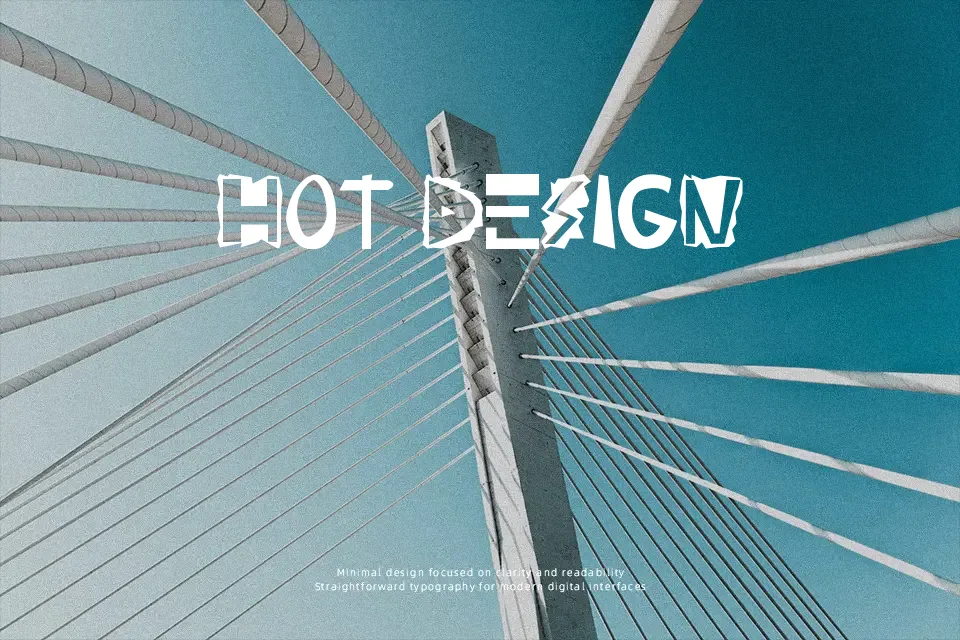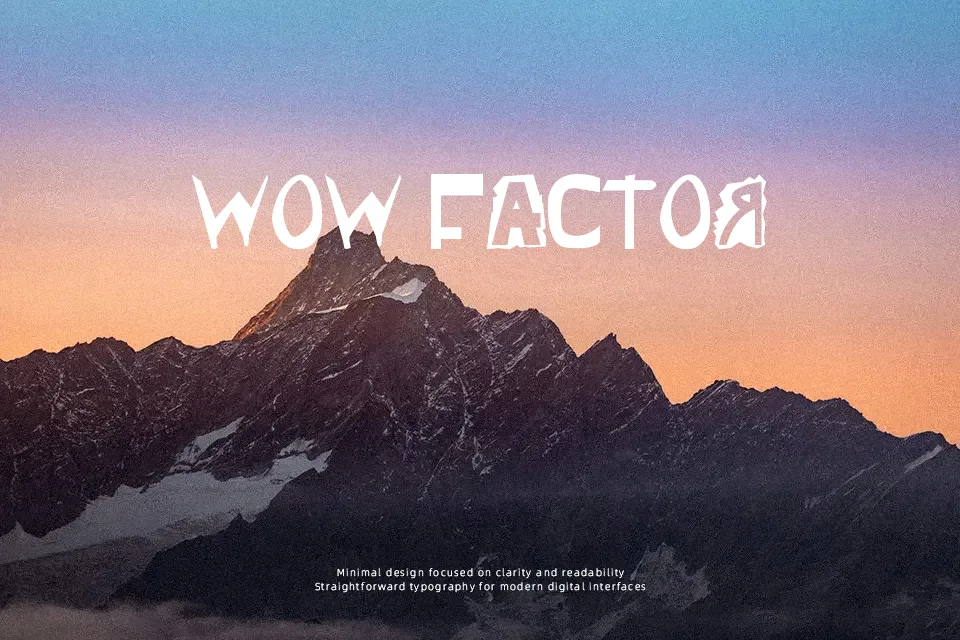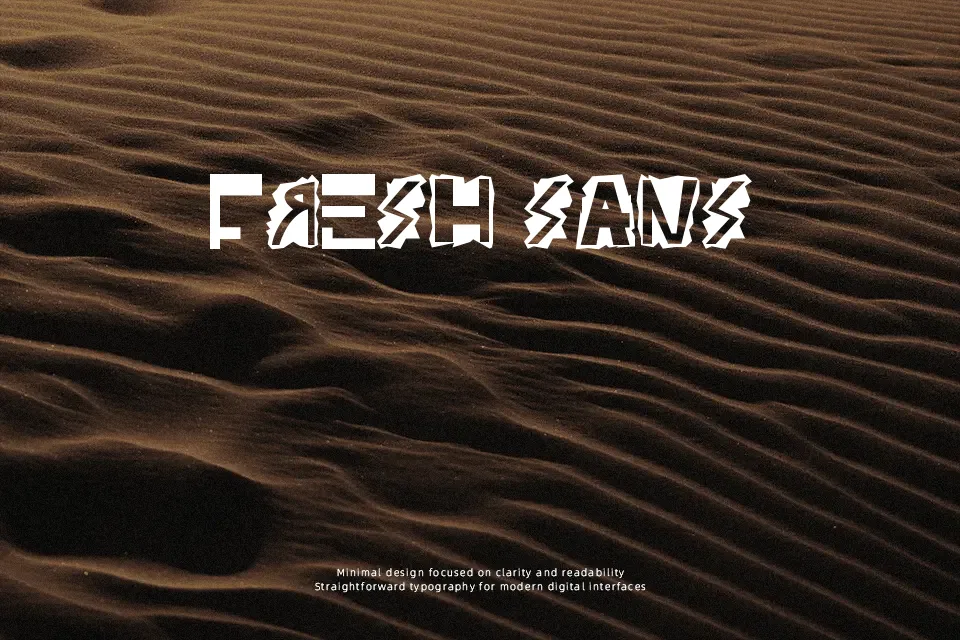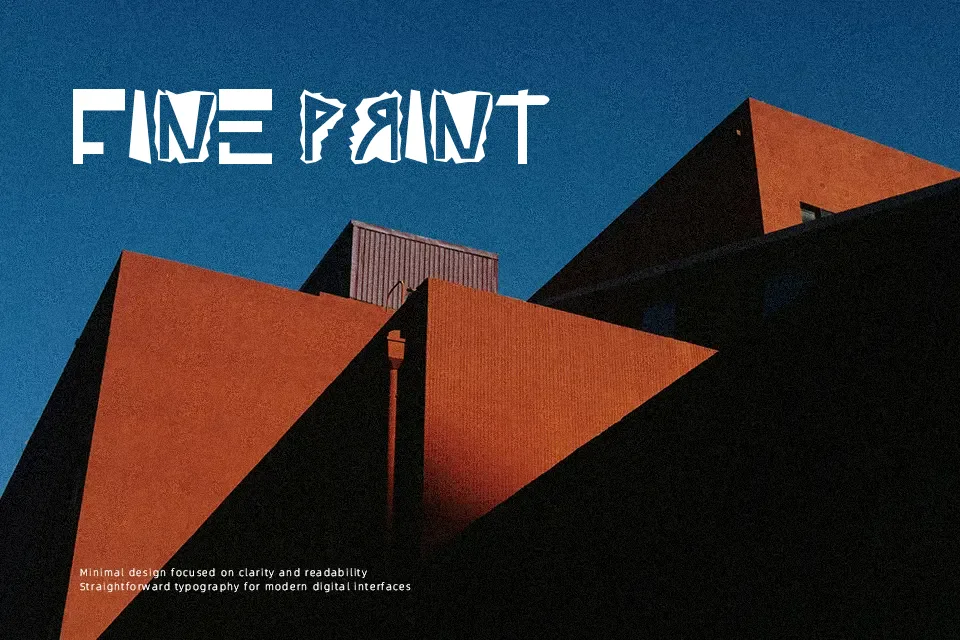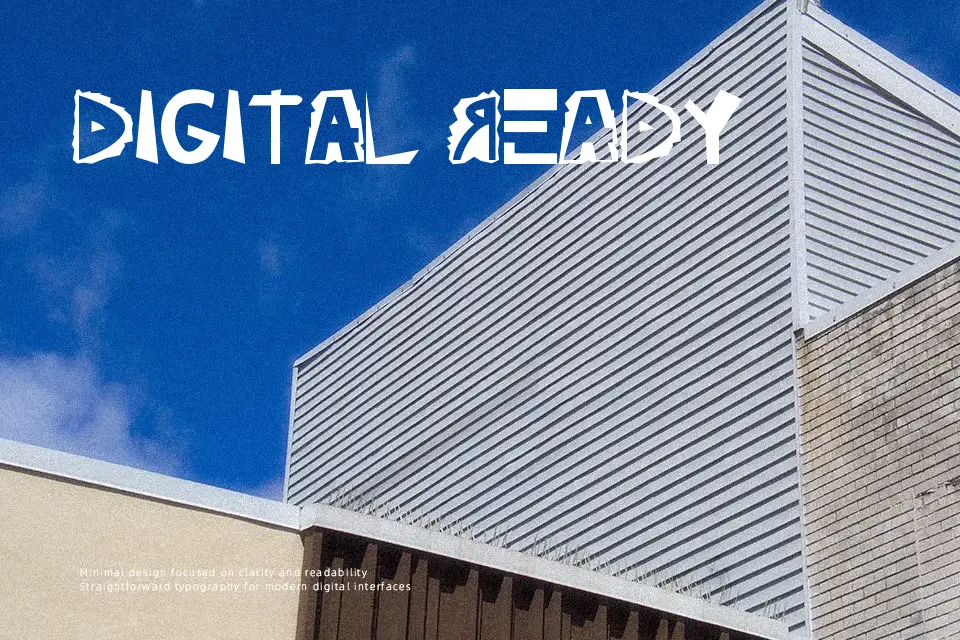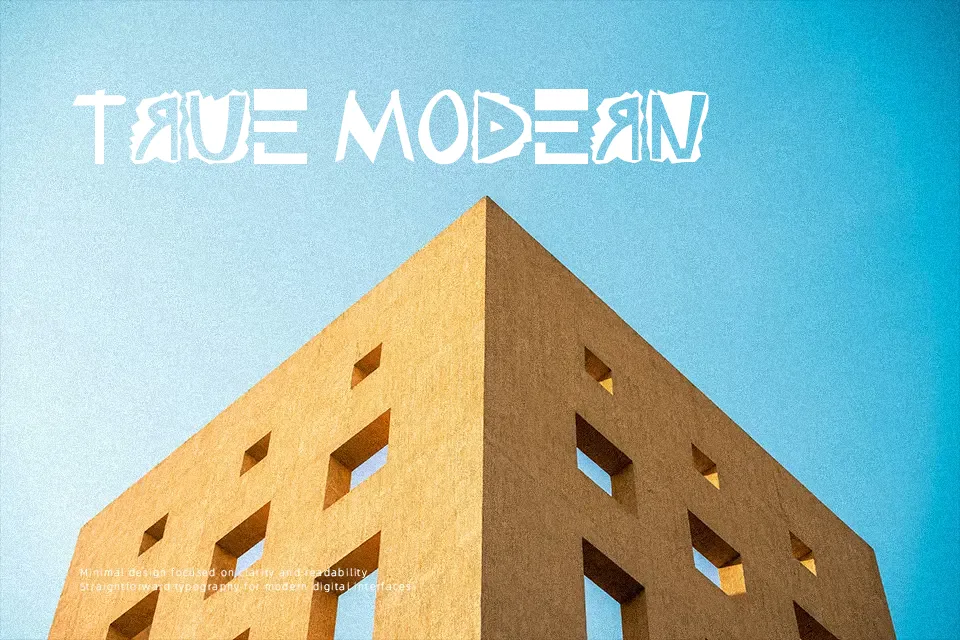
Punks Font
This typeface performs best when displayed at larger sizes, allowing the gritty textures of Punks Font to command attention. The letterforms feature heavy, distressed strokes and irregular borders that simulate a worn, stamped appearance. Spacing is somewhat erratic but intentional, contributing to an energetic and rebellious visual rhythm across the baseline. While the rugged proportions give character to short poster headlines and apparel graphics, the dense textures and unpredictable edges become a significant limitation in continuous reading. Dense forms reduce comfort during extended reading, meaning the design should be restricted to high-impact focal points rather than dense paragraphs.
skate apparel graphics
rebellious brand identities
urban streetwear labels
Perfect for fashion, headline, and music, with a bold and decorative style.